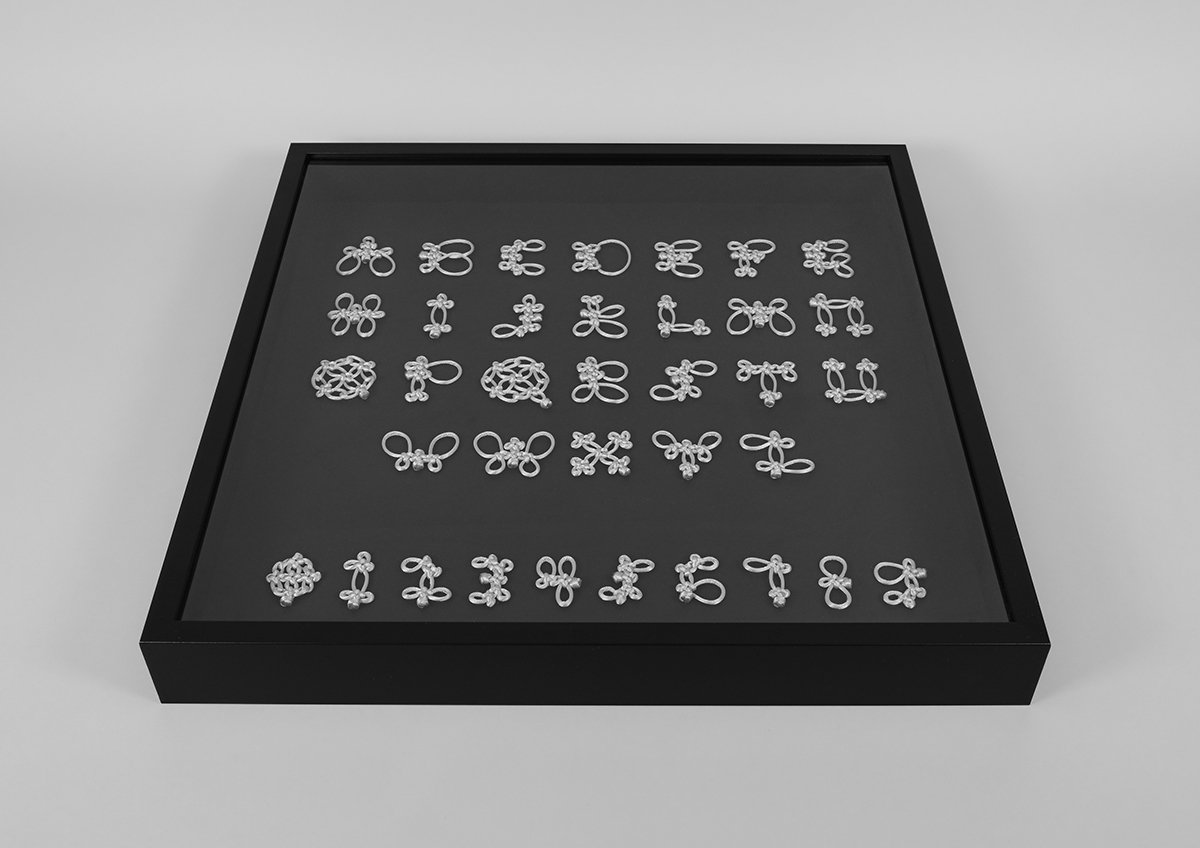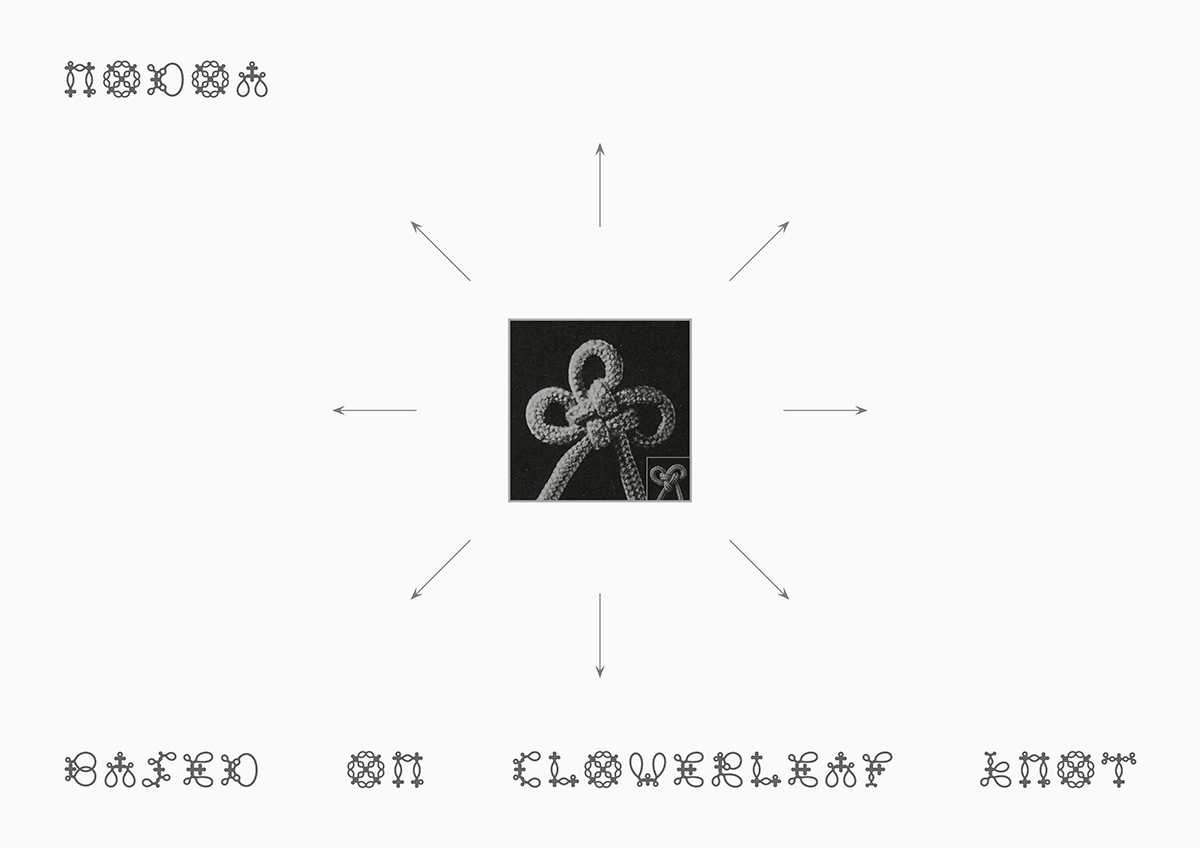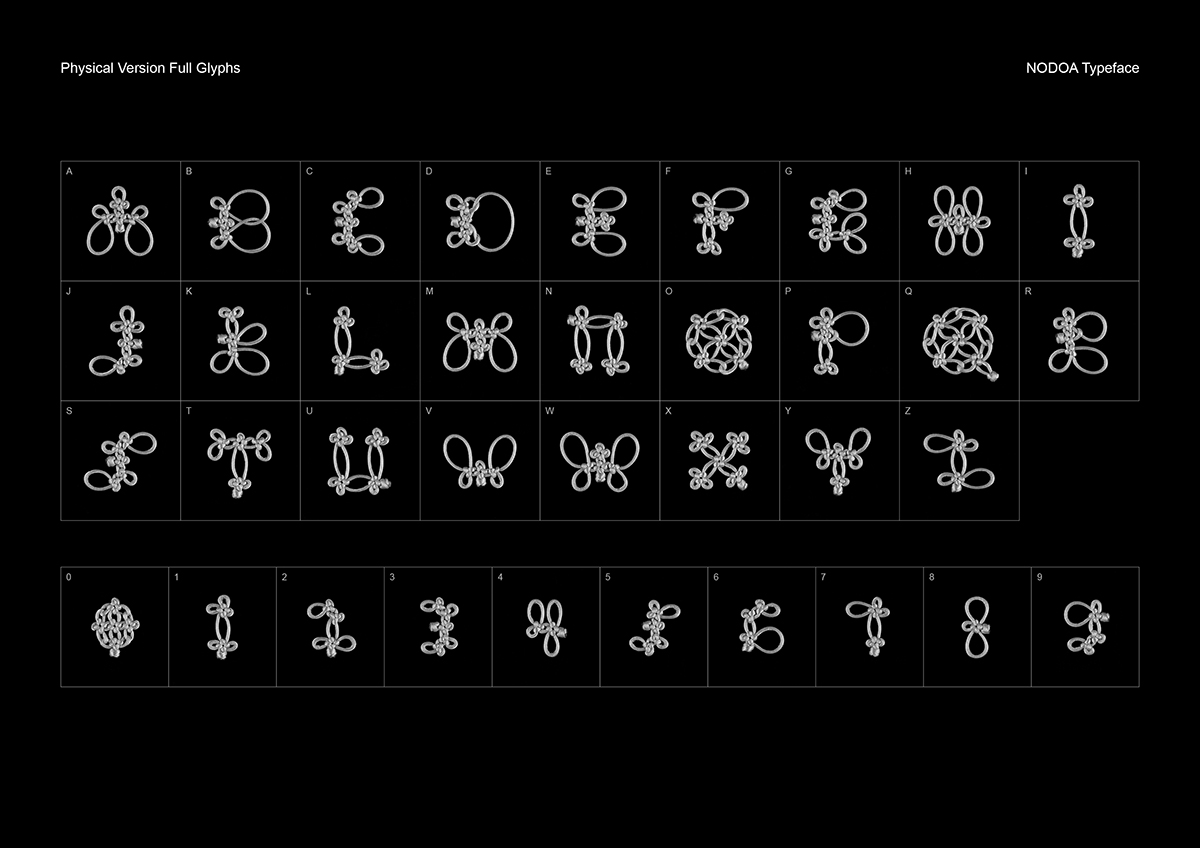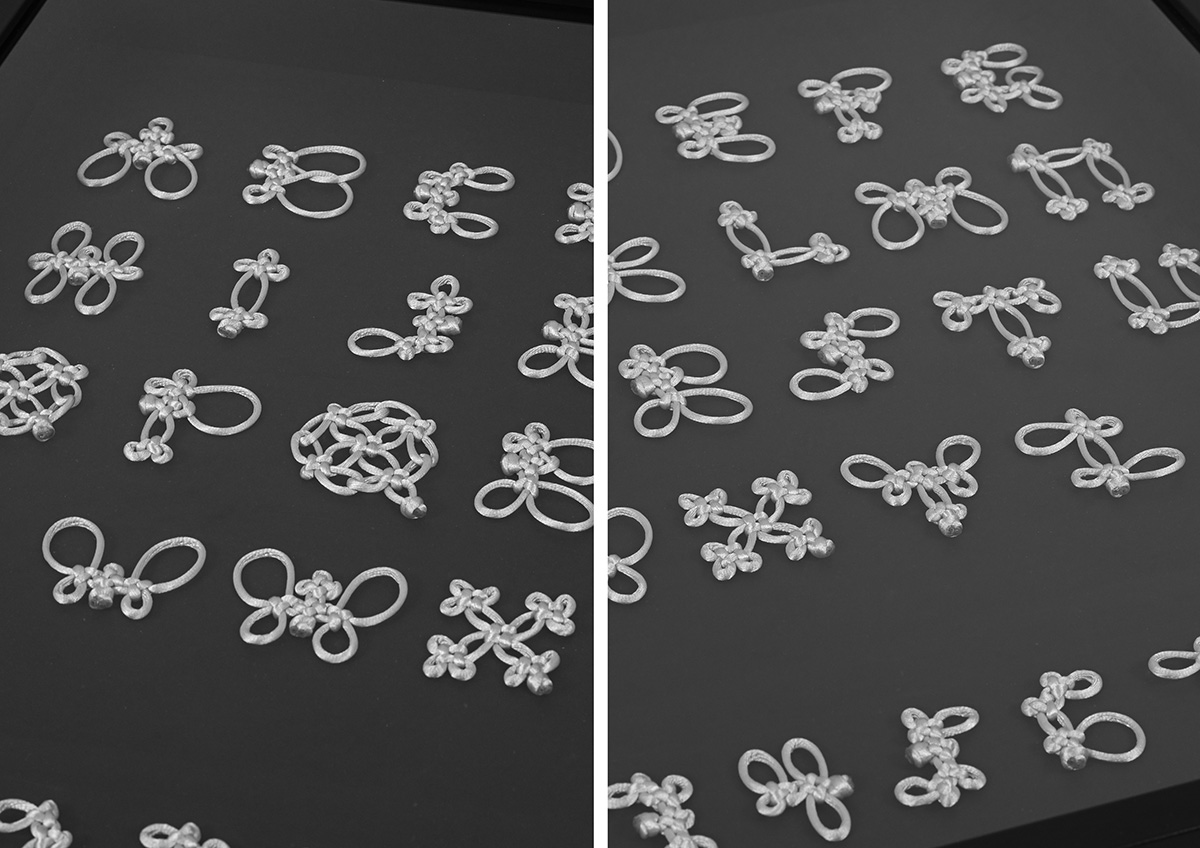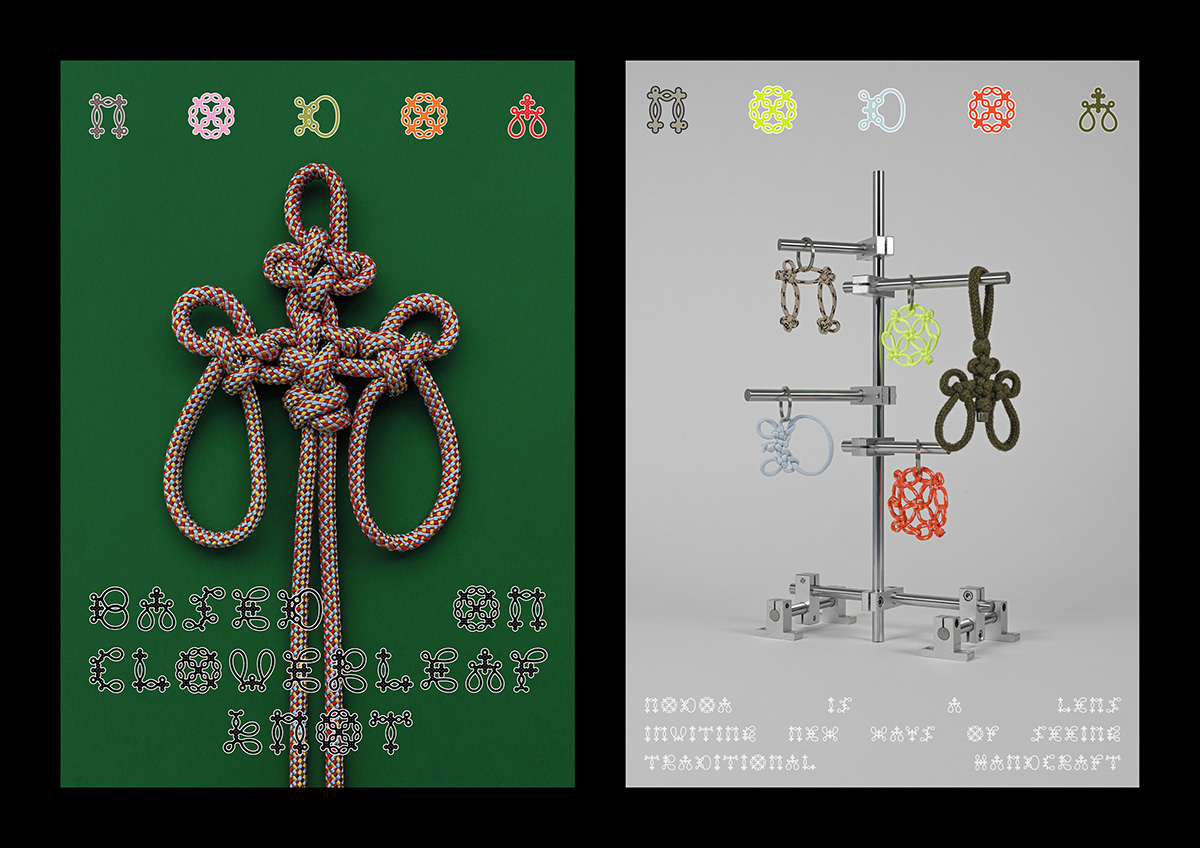
NODOA Typeface
A decorative typeface that celebrates the craftsmanship of Chinese knotting
NODOA is a decorative Latin typeface inspired by traditional Chinese knotting craftsmanship. Designed by Eikou Zhang, it is based on the Cloverleaf knot as the core unit, presented in both handmade physical and 2D digital formats. Through contemporary graphic design practice, the typeface offers a fresh perspective on appreciating and understanding traditional handcraft.
The project originated from an exploration of Chinese knotting, combining hands-on practice with research into its dissemination and reinterpretation in contemporary contexts. These discussions often remain tied to fields like fashion or installation art. As a practitioner in graphic design, Zhang wanted to contribute ideas rooted in this discipline. By studying knotting techniques, he identified the cloverleaf knot—one of the fundamental knots in Chinese knotting—as a highly flexible and structurally adaptable unit, aligning naturally with the logic of modular type design. Using the Latin alphabet as a foundation establishes an accessible bridge of understanding for global audiences.